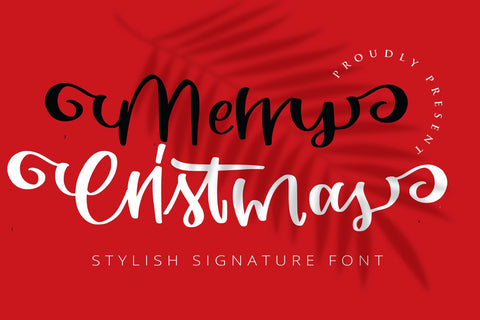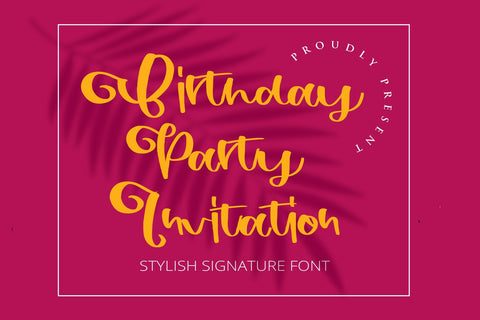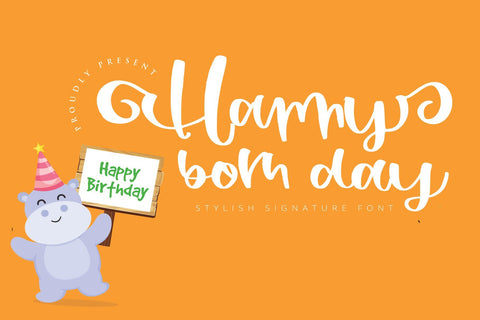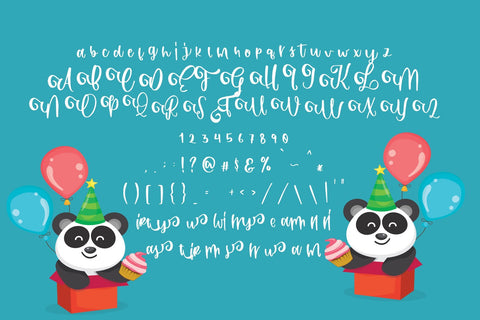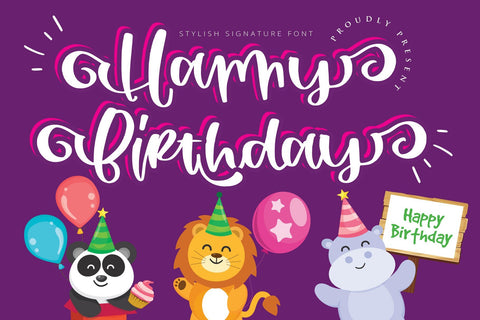
happy birthday
Come with open type feature with a lot of alternates and end swash, its help you to make great lettering.
Gayesha best uses for valentine, wedding, invitation, heading, cover, poster, logos, quotes, product packaging, header, merchandise, social media & greeting cards and many more.